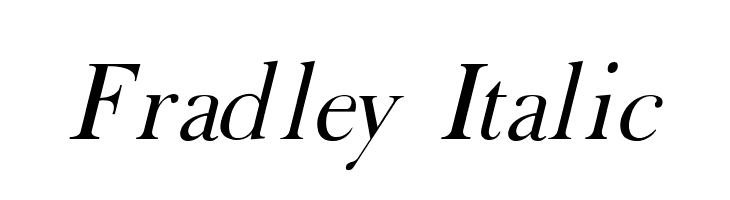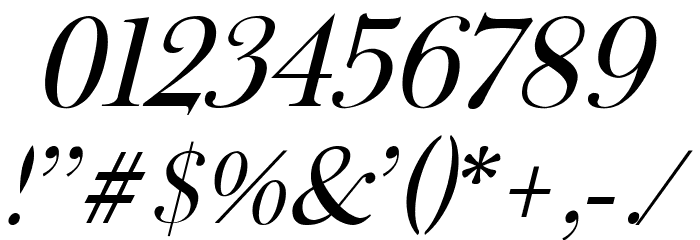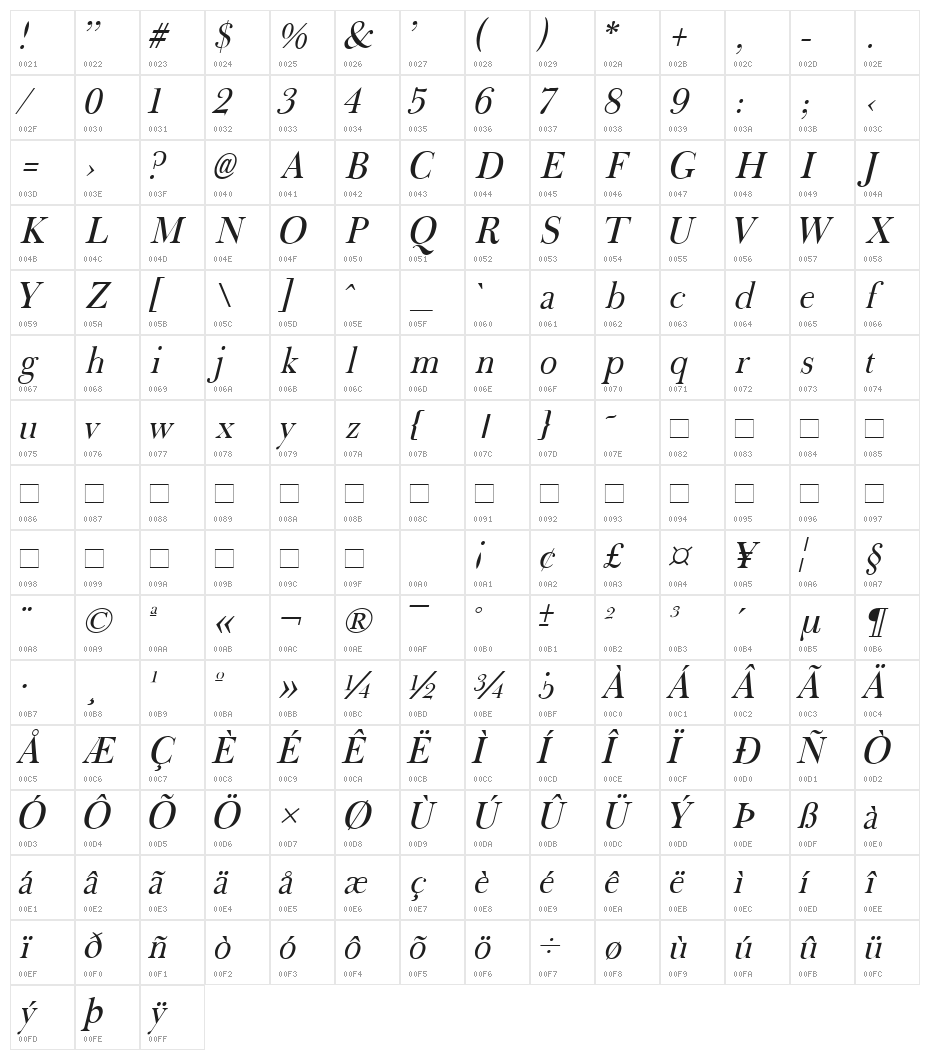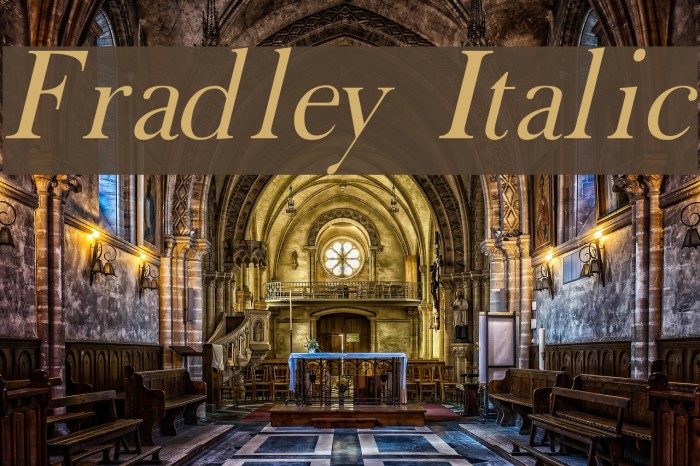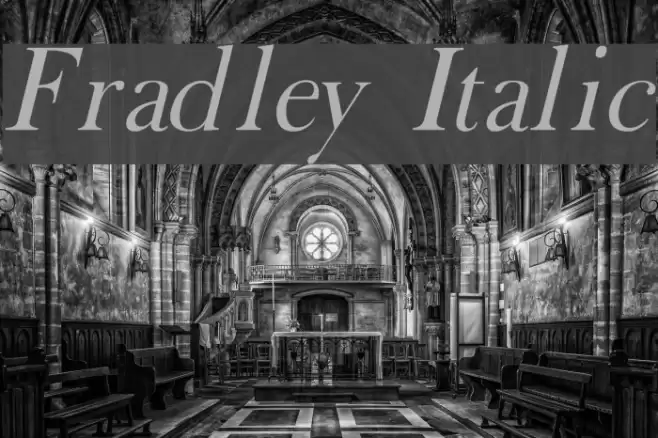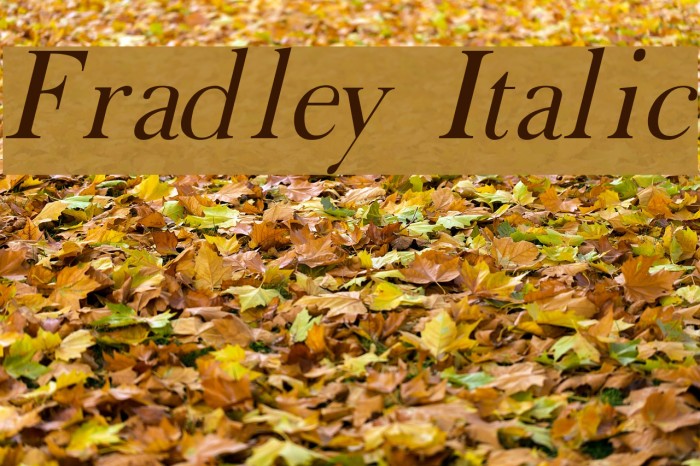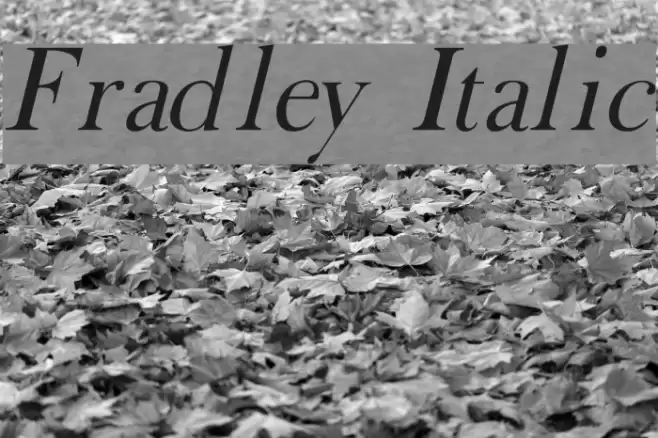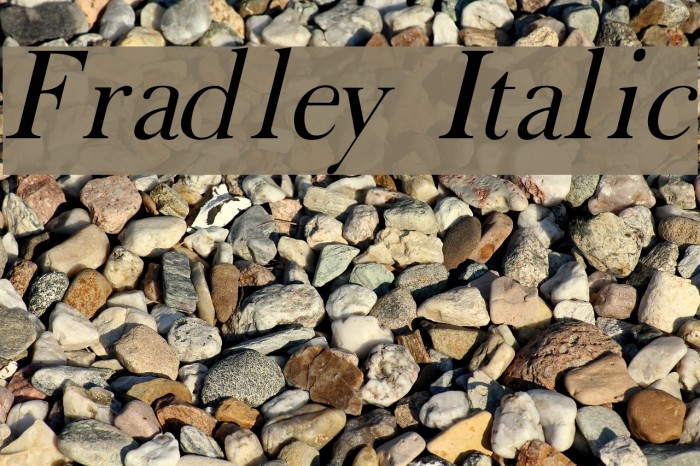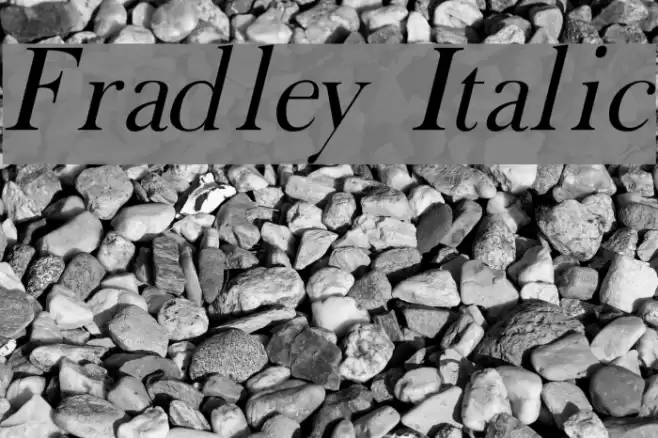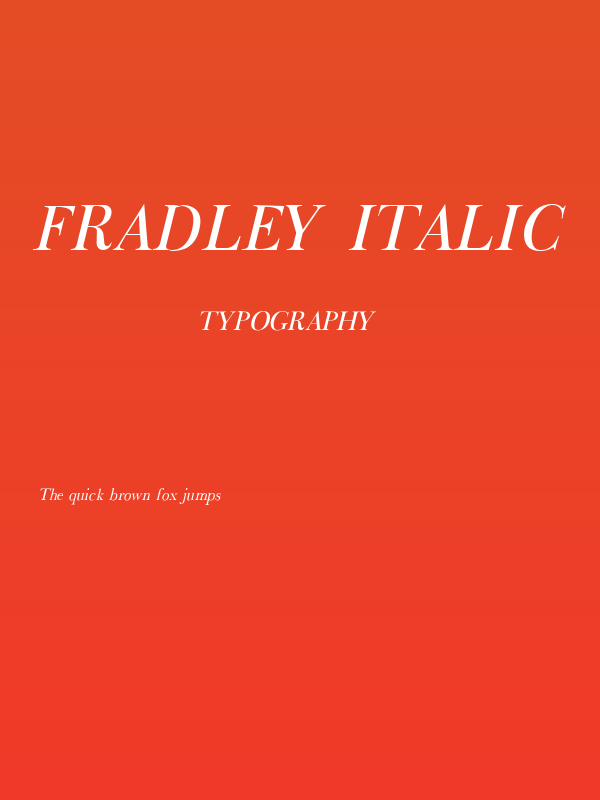
Fradley Italic Font
Fradley Italic Description
This elegant serif typeface features a classic italic style, characterized by its graceful and flowing letterforms. The font exhibits a refined balance between thick and thin strokes, enhancing its sophisticated appearance. The serifs are delicately crafted, adding a touch of tradition and formality. Its italic nature gives it a dynamic and fluid feel, making it suitable for conveying emphasis and elegance. The numerals and special characters maintain the same stylistic integrity, ensuring consistency across all text elements.
| Proposed Projects | Ideal for use in formal invitations, editorial design, luxury branding, and elegant book covers. |